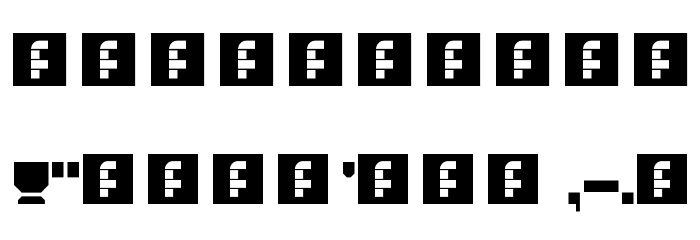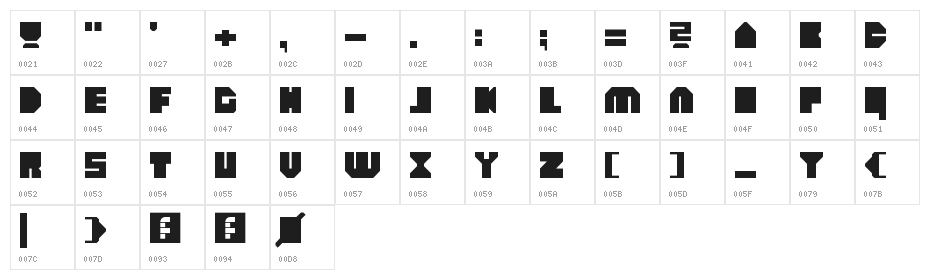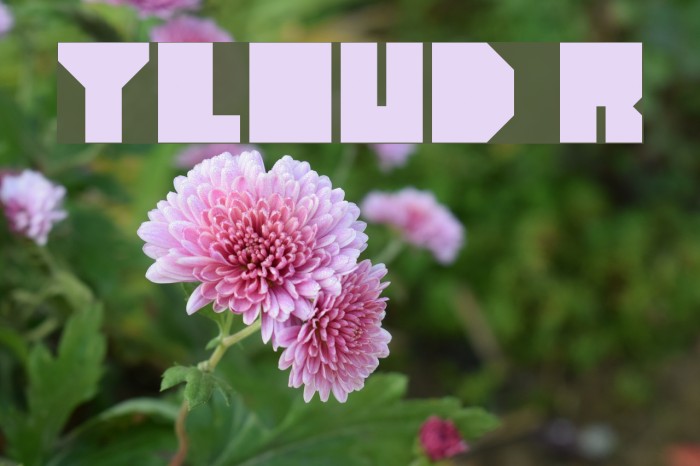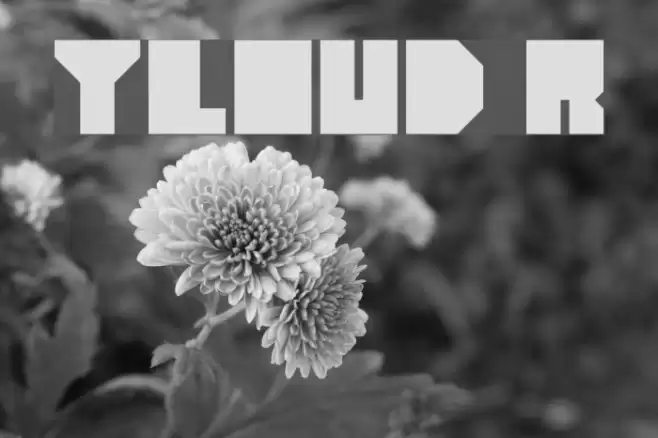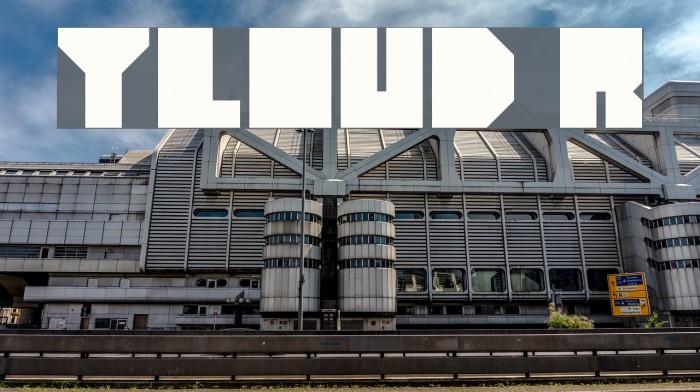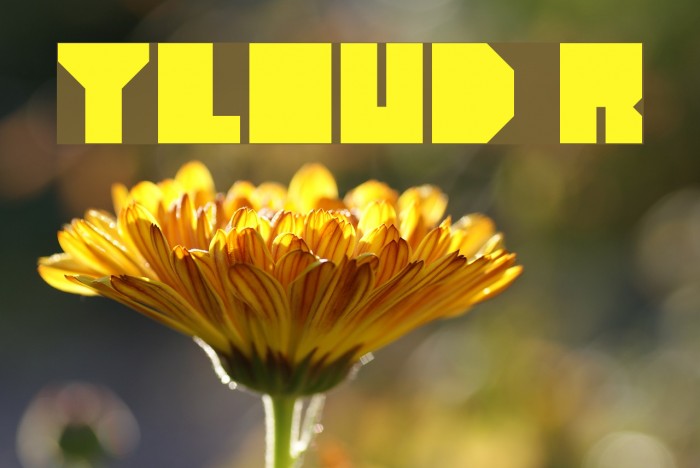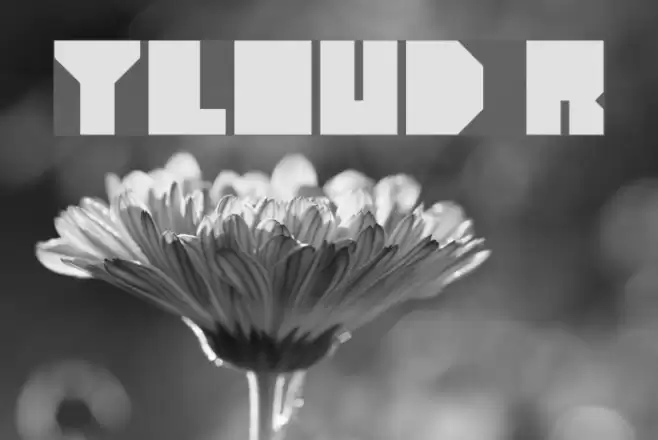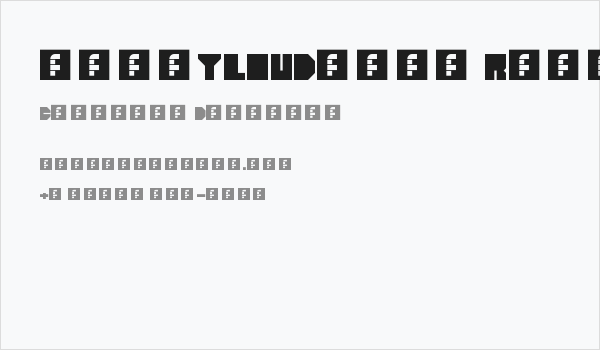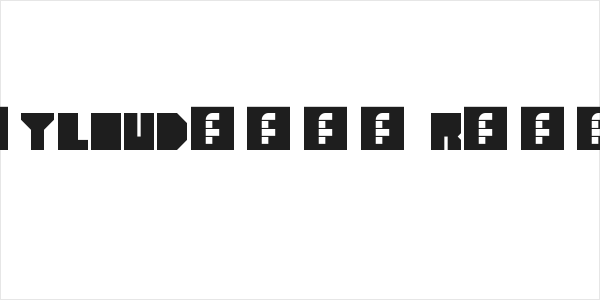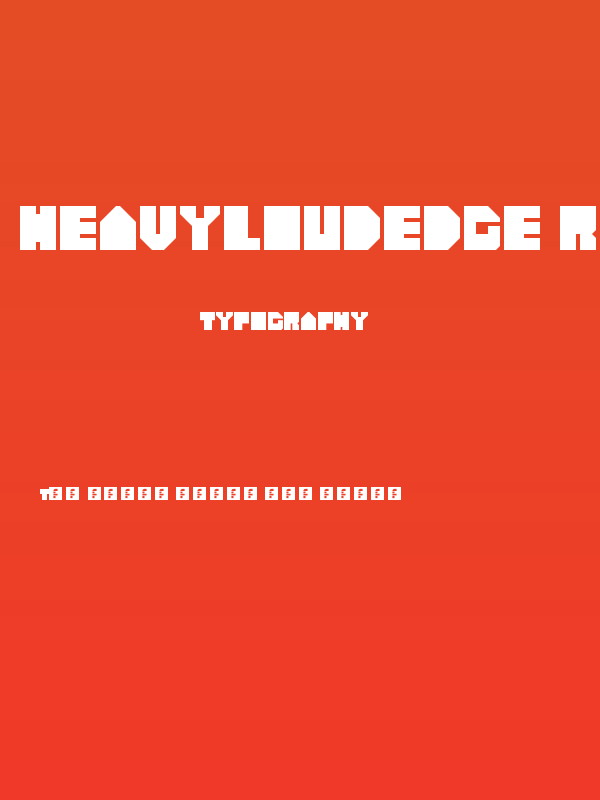
heavyLOUDedge Regular Font
heavyLOUDedge Regular Description
This font features a bold and geometric style, characterized by its heavy block-like letterforms. The uppercase letters are particularly striking, with sharp angles and a strong presence. The lowercase letters maintain the same boldness, creating a cohesive look throughout. The numbers and special characters follow this geometric theme, adding to the font's overall impact. Its design is reminiscent of industrial or futuristic aesthetics, making it suitable for projects that require a strong visual statement.
| Overall Style | Futuristic, Industrial |
| Proposed Projects | Ideal for posters, album covers, branding for tech companies, or any project needing a bold, futuristic look. |